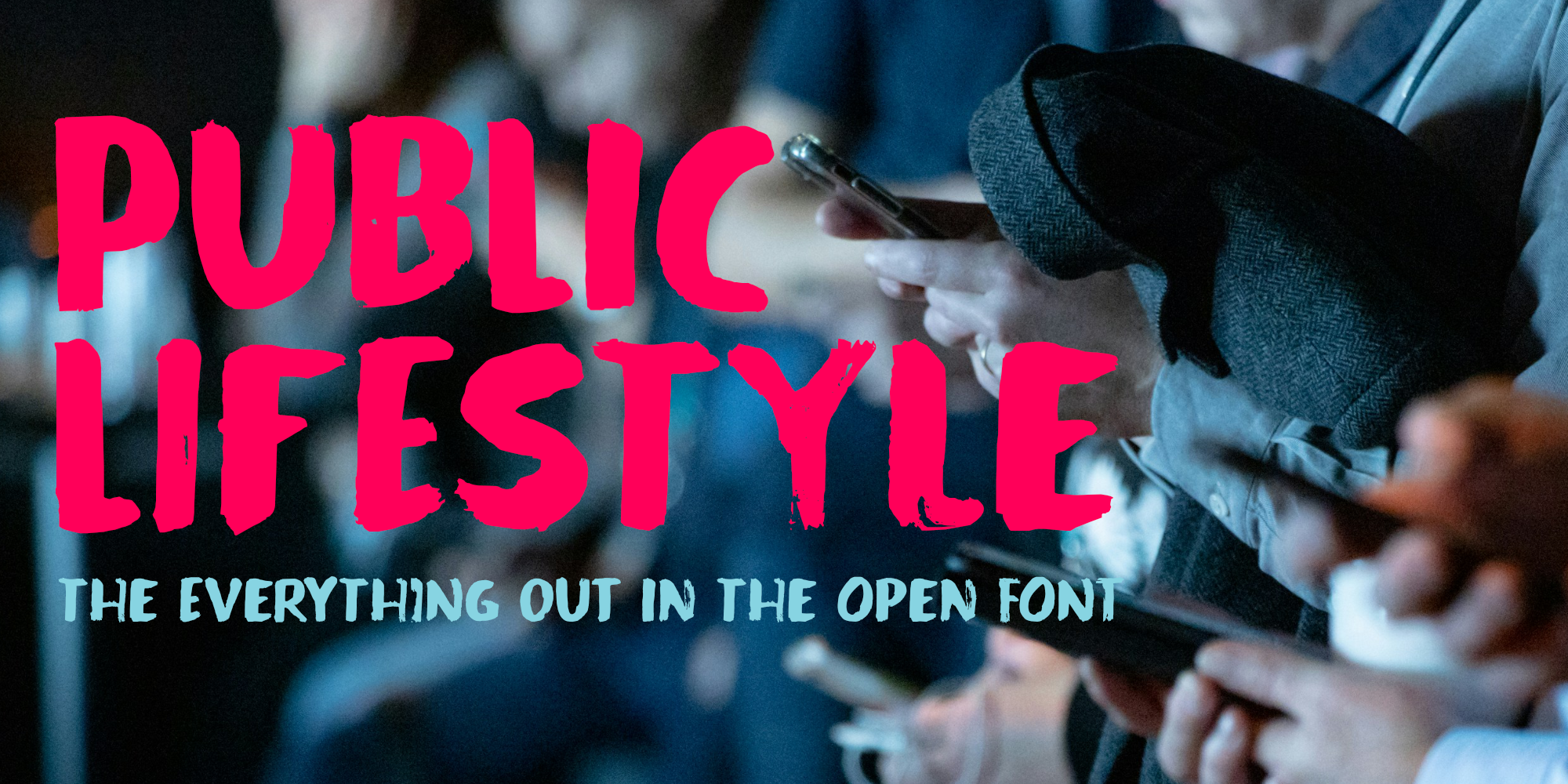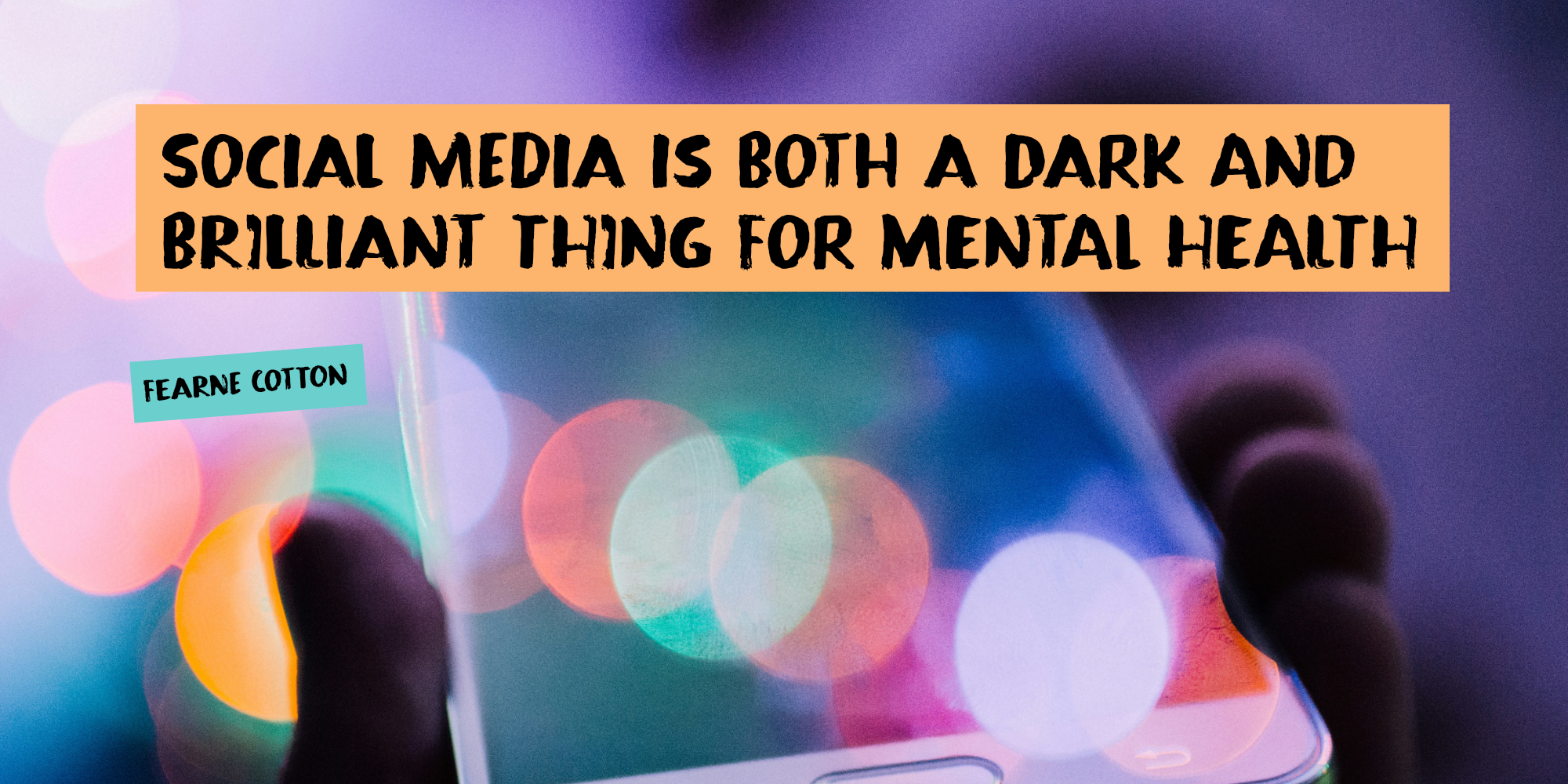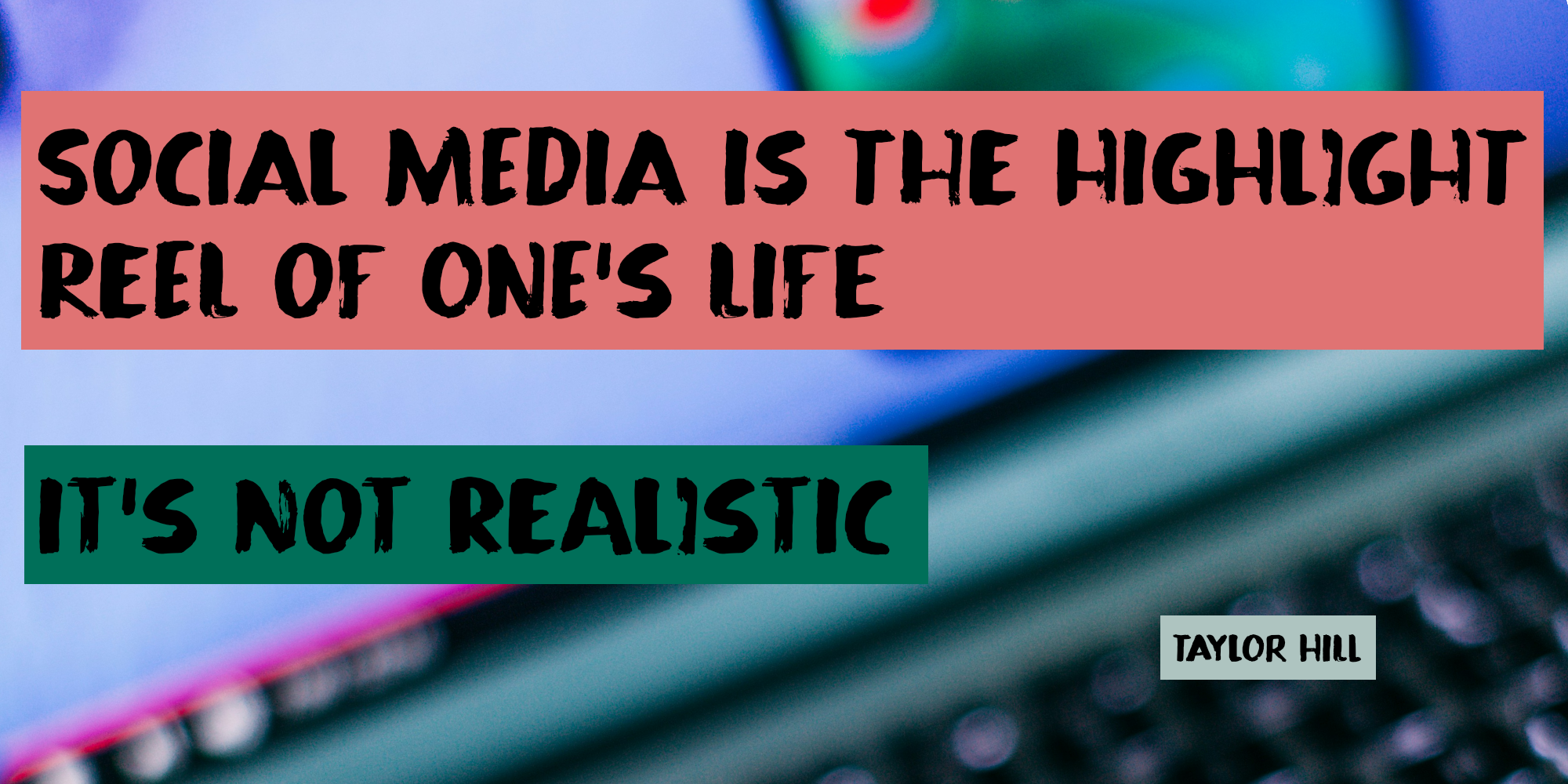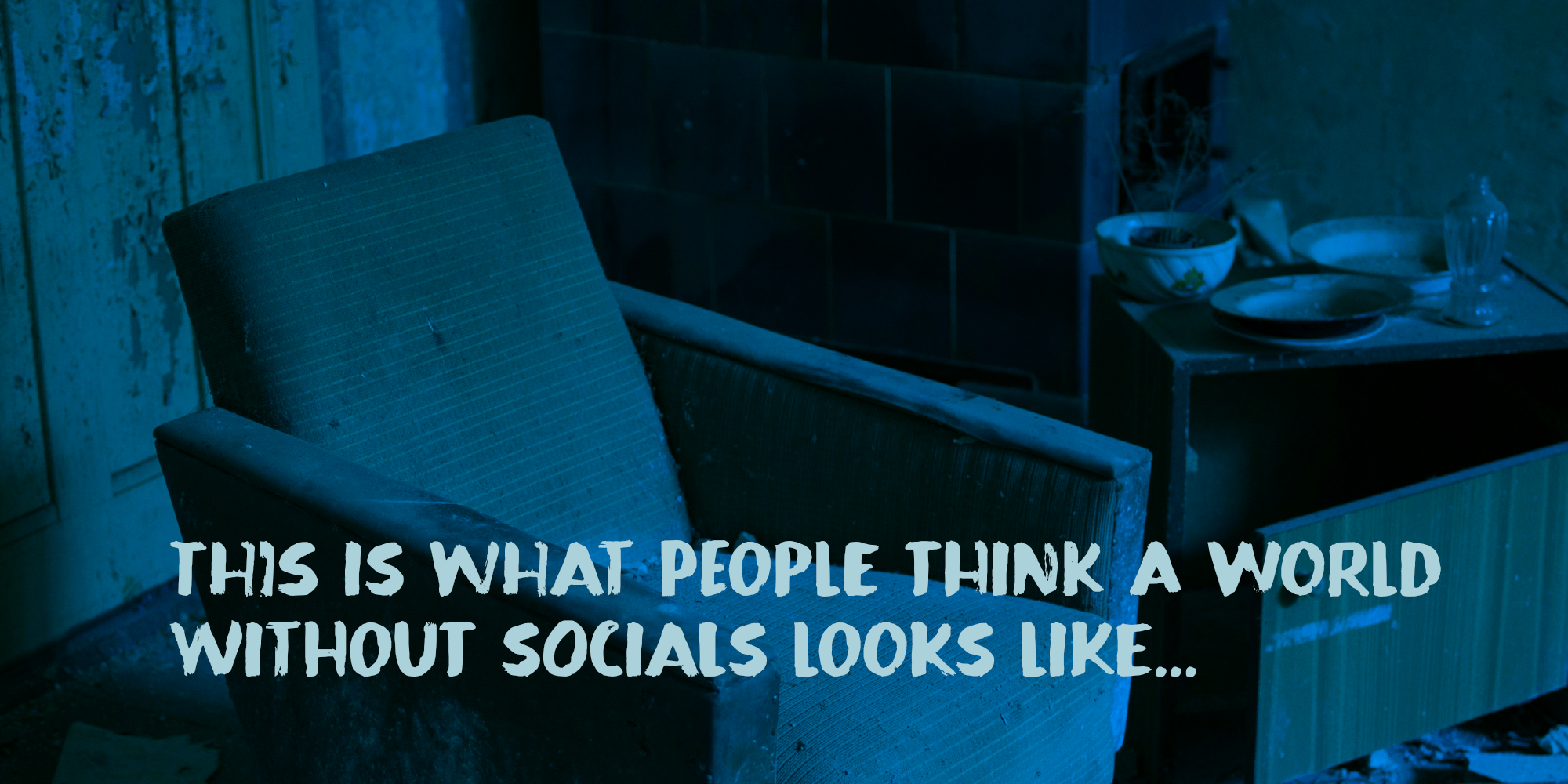
Public Lifestyle (2 fonts)
Public Lifestyle is an ‘all out in the open’ kind of font. It was made using ink and a brush. It is fat, flamboyant and very loud. Use it for whatever you like!